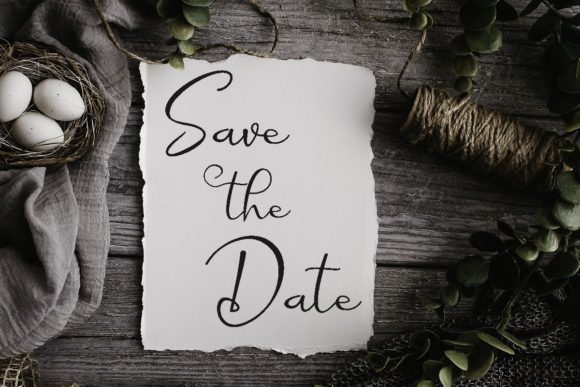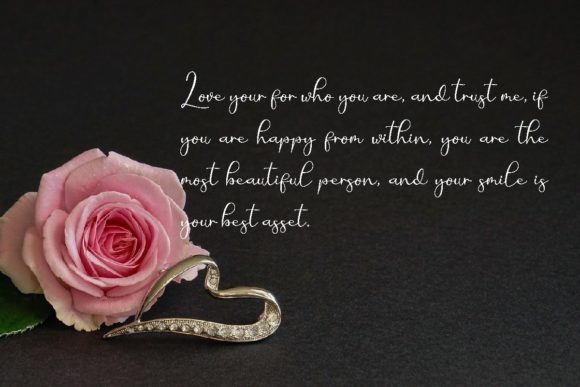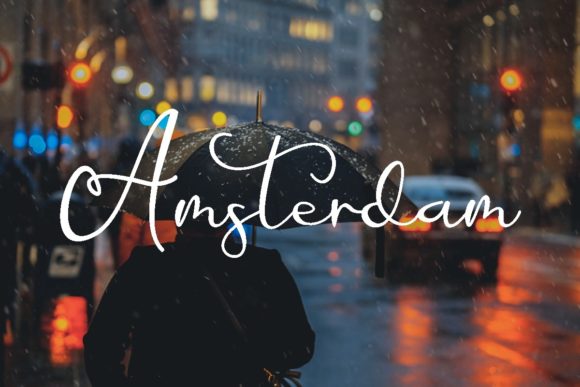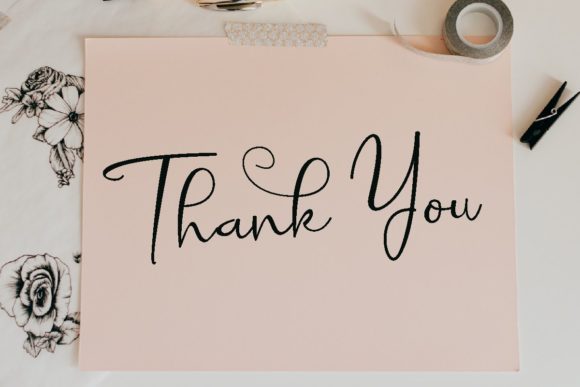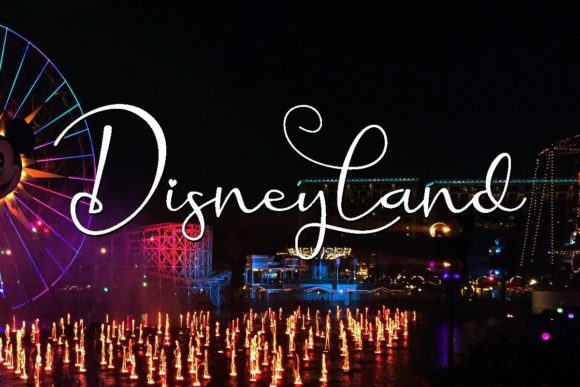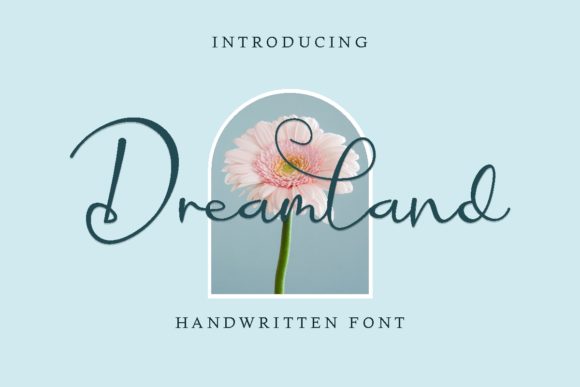
The Dreamland Font: A Luxurious Addition to Your Design Arsenal
First Impressions: A Flowing and Delicate Handwritten Font
Dreamland is a flowing and delicate handwritten font that features characters dancing along the baseline. This beautiful font is perfect for adding a touch of luxury to any design project. Whether you’re a designer, crafter, or creative hobbyist, Dreamland is sure to impress.
- ✅ Elegant and sophisticated feel
- ✅ Perfect for luxury branding, packaging, and advertising
- ✅ Softy, flowing lines that add a touch of whimsy
- ⚠️ Some characters may not work well in all contexts (e.g., using the font for body text in a lengthy article)
- ⚠️ Limited availability of certain OpenType features (but more on that later)
The Story Behind Dreamland: Designer Inspiration
Dreamland was created by a talented font designer who wanted to capture the essence of luxury and sophistication. Inspired by the flowing lines of handwritten calligraphy, the designer crafted a font that would add a touch of elegance to any design project.
A: Dreamland is perfect for luxury branding, packaging, and advertising. Use it as a headline font or for short bursts of text.
Q: Can I use Dreamland for body text?
A: While Dreamland is highly legible, it may not be the best choice for lengthy body text. Consider using a serif font for body text and Dreamland for headlines.
Q: Is Dreamland available in different weights?
A: Yes, Dreamland comes in various weights, allowing you to use it for both bold and subtle design elements.